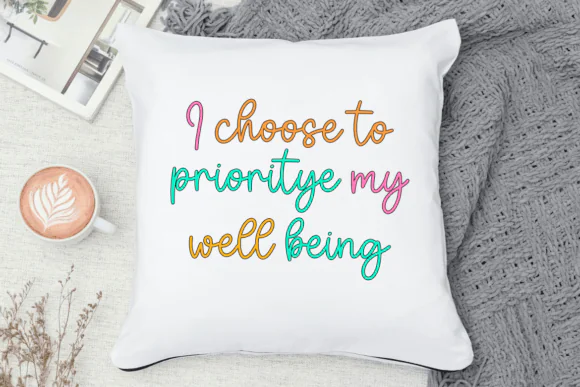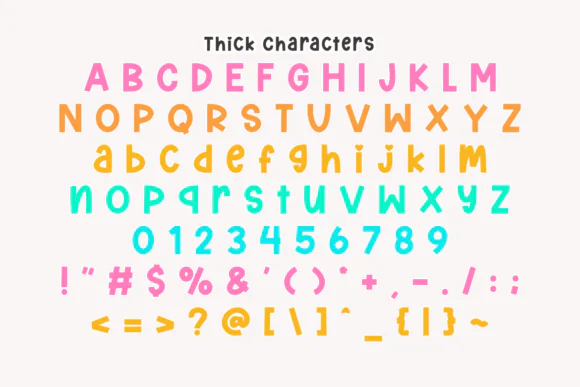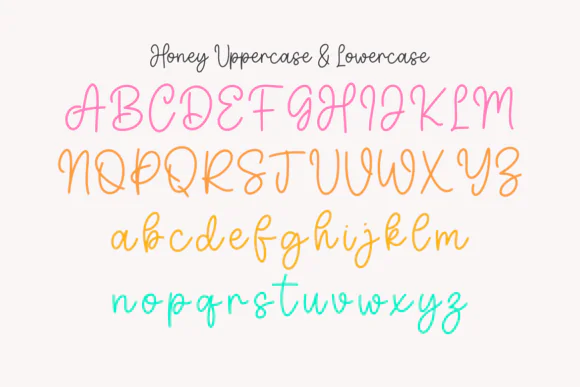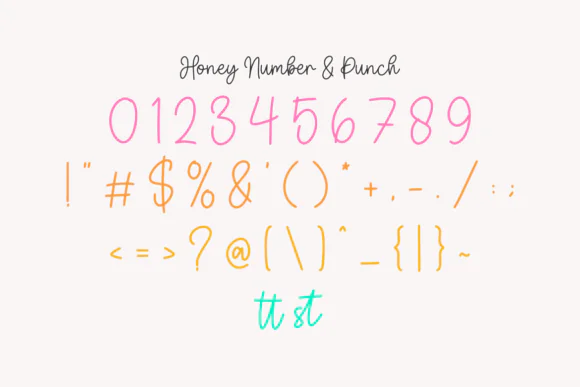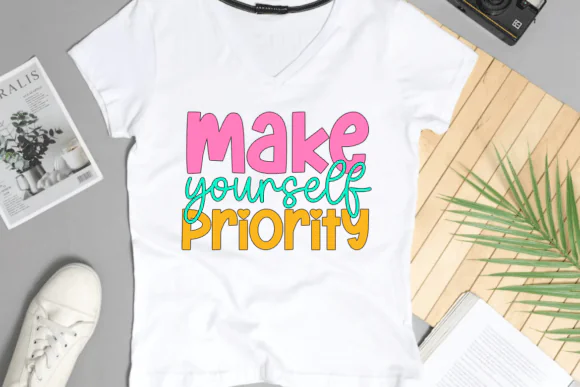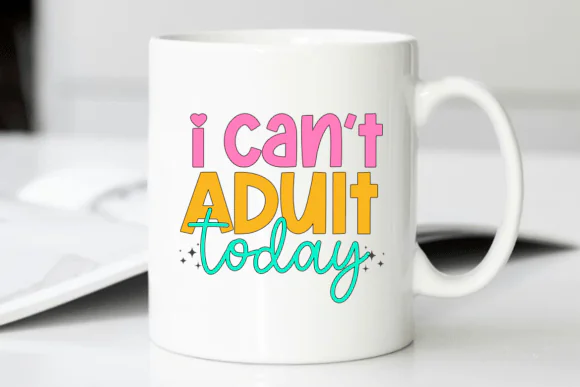
Thick Honey Duo Font – Playful Chunky Display & Fluid Script Typeface for Kids Branding, Bakery Logos, Nursery Wall Art, Stickers, Merchandise, Social Media Graphics & Cute Creative Designs
Add sweetness, personality, and playful charm to your designs with Thick Honey Duo Font, a delightful font pair that combines a bold chunky display style with a charming fluid script. This duo gives creators the perfect balance between strong attention-grabbing headlines and soft handwritten elegance.
The display version features thick, rounded characters that are ideal for bold titles, playful logos, kids designs, and eye-catching merchandise. The script companion adds a smooth hand-drawn touch with rhythmic grace, making your designs feel modern, approachable, and beautifully layered. Together, the contrast between the heavy display letters and delicate script strokes helps transform simple phrases into fun, professional, and whimsical typography layouts.
Thick Honey Duo Font is perfect for children’s branding, bakery logos, nursery wall art, custom stickers, upbeat social media graphics, product packaging, party invitations, printable designs, apparel, Cricut crafts, and cheerful merchandise. It works especially well with vibrant multi-colored palettes and cute friendly design themes.
Key Features
• Playful duo font with display and script styles
• Bold chunky display letters for high-impact titles
• Fluid handwritten script for a soft creative touch
• Thick rounded characters with a cute friendly vibe
• Great for vibrant, colorful, and whimsical designs
• Perfect for children’s, bakery, nursery, sticker, and merchandise projects